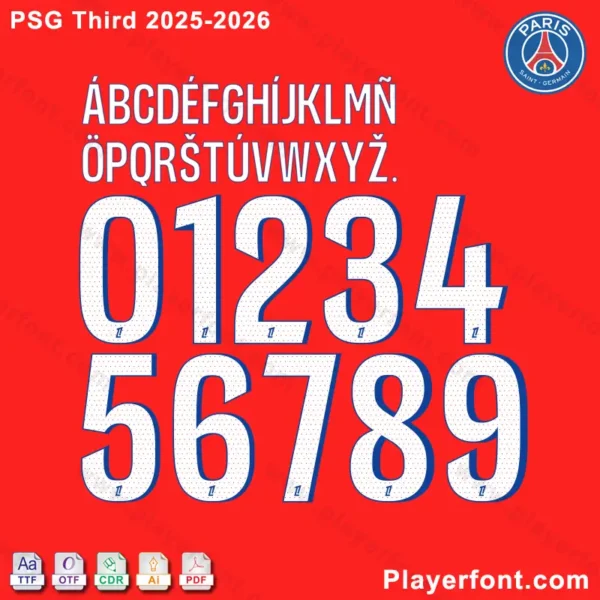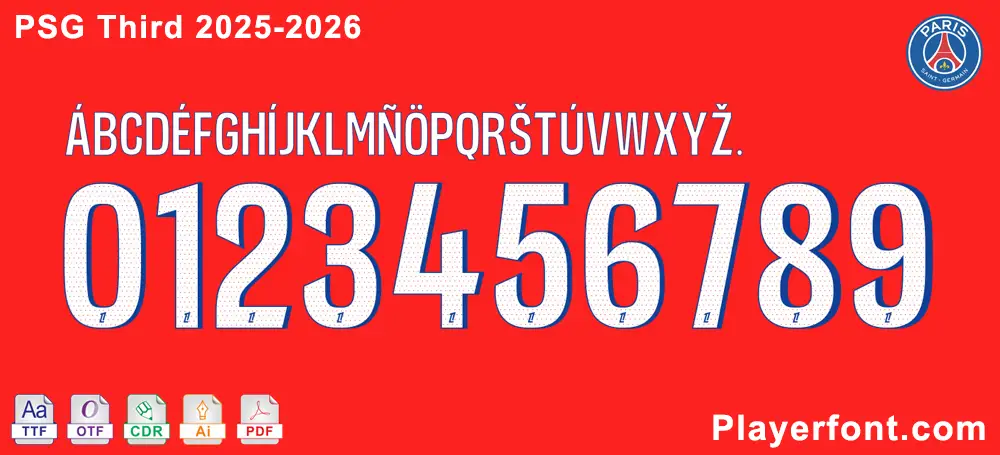
Unleash your creativity with the official PSG Third 2025-2026 Font. This meticulously crafted typeface captures the unique style of Paris Saint-Germain’s third jersey, allowing you to create authentic and professional designs for any project.
Official PSG Third Kit 2025-2026 font showing complete alphabet, numbers, and sample text for download.
Complete character set (A-Z, 0-9) of the PSG Third Kit 2025-2026 Font available for instant download.
Close-up preview of the modern PSG Third Kit 2025-2026 custom font for designers and fans.PSG Third 2025-2026 Font Downloads